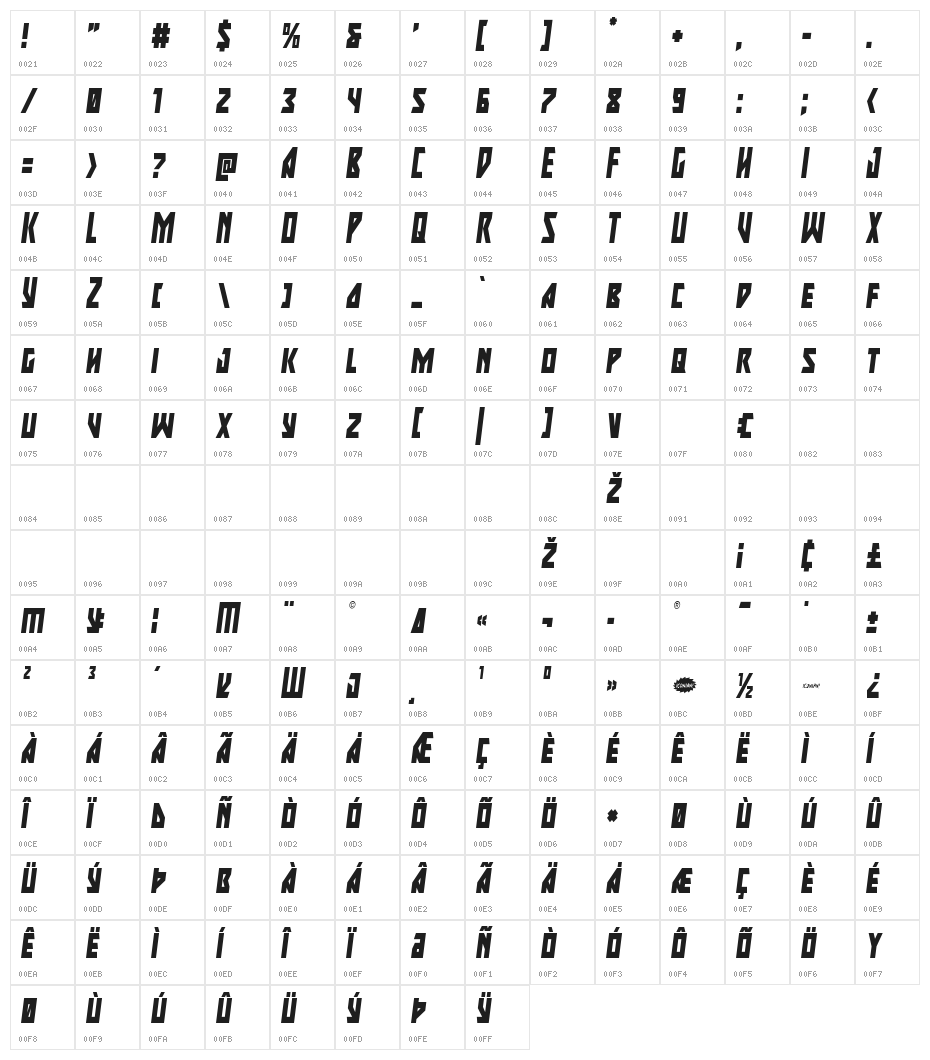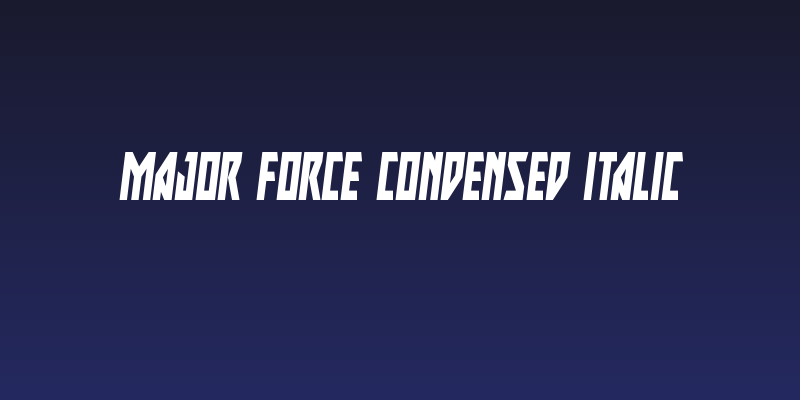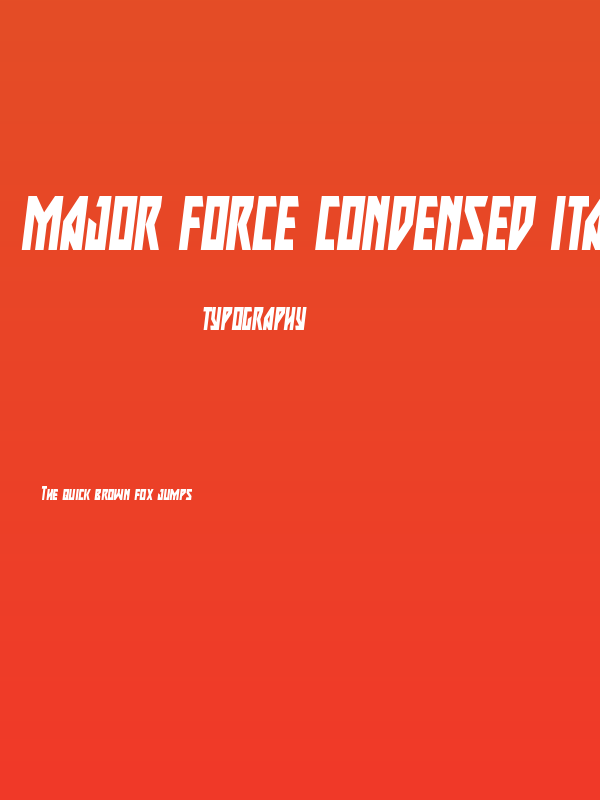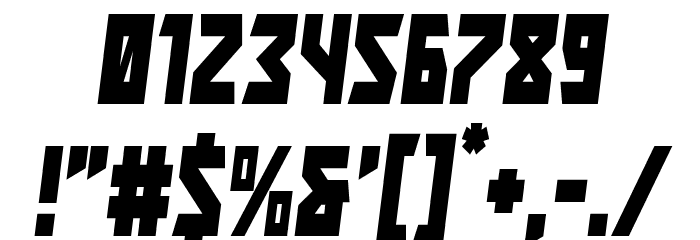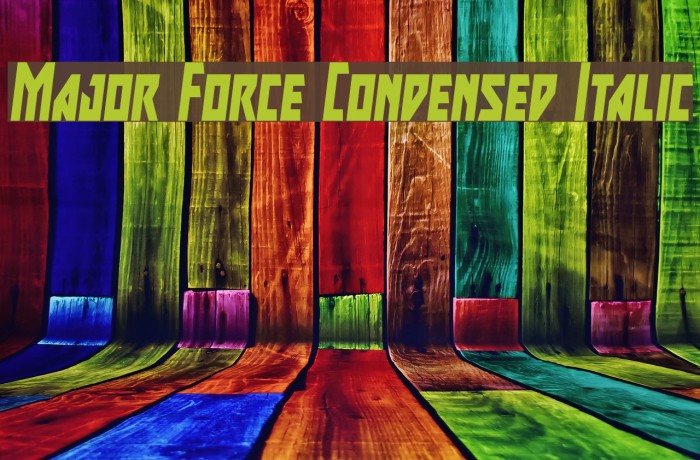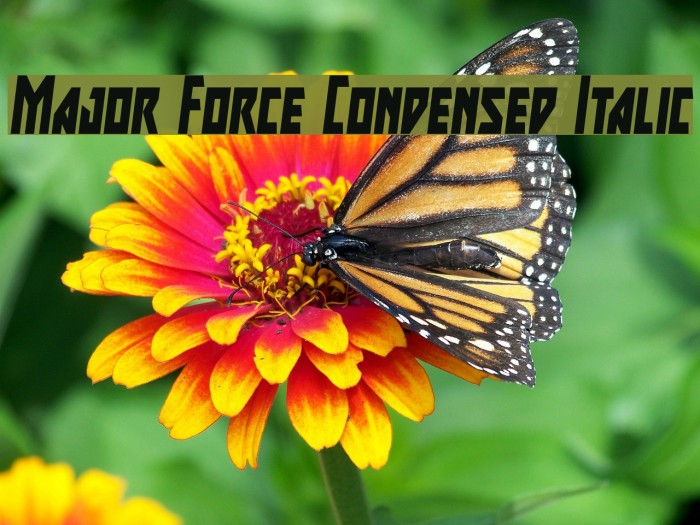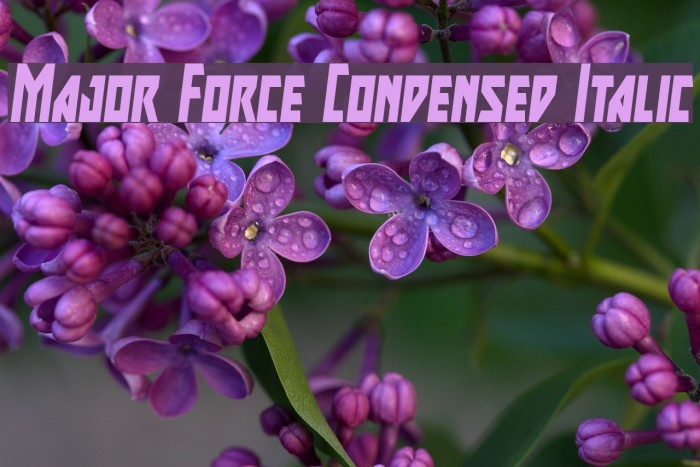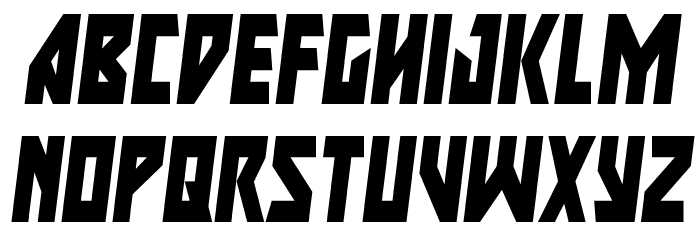
Major Force Condensed Italic Font
This font features a bold and dynamic design with a strong geometric influence. The characters are sharply angled, giving them a sense of movement and energy. The condensed style allows for efficient use of space, making it ideal for impactful headlines. The italic slant adds a sense of urgency and modernity, while the thick strokes ensure high visibility. The uppercase and lowercase letters maintain a consistent style, with numerals and special characters following the same bold aesthetic. This font is perfect for projects that require a strong visual presence.